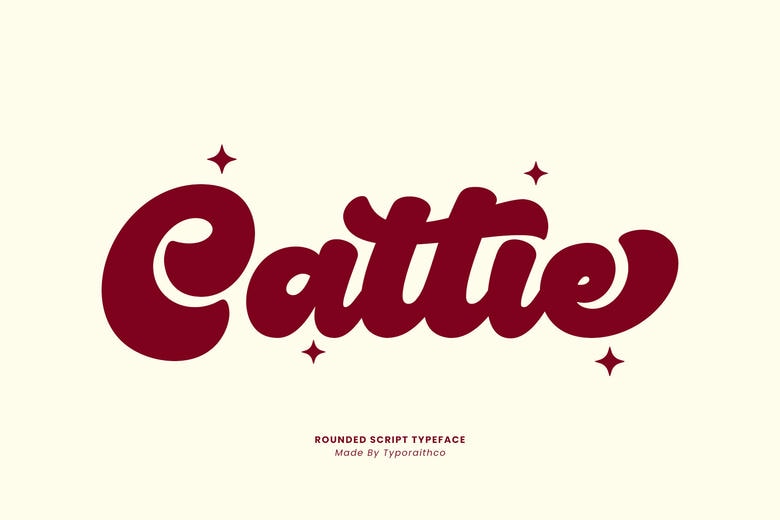
Cattie Font
Cattie is a rounded and daring script typeface with a gentle and playful nature and vintage appeal. Ideal in logos, posters, product packaging, quotes, or any branding project that requires a fun and catchy feel.
This typeface has flowing letterforms that are smooth and give a friendly and energetic impression. The additional star accents provide your design with the added glitz to make it shine!
Cattie Script Font